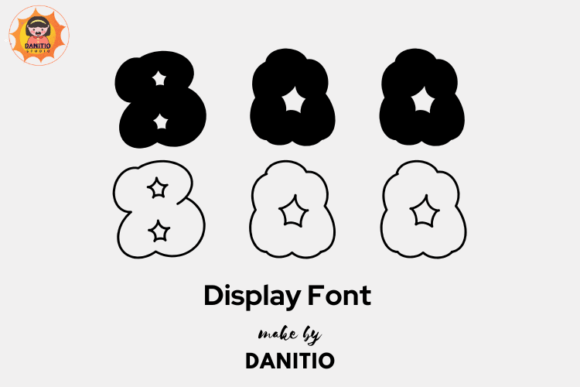
Unleash Your Creativity with Boo Boo Font: The Ultimate Font for Fun and Spooky Designs
Step into a world of whimsy and enchantment with Boo Boo Font, a captivating display font designed to bring joy and personality to your creative projects. Whether you're designing digital invitations, crafting greeting cards, or creating custom merchandise, Boo Boo Font is your perfect companion.
With its playful curves and bubbly charm, Boo Boo Font exudes a sense of lightheartedness and merriment. Inspired by the magic of Halloween, this font is a perfect fit for any project that aims to evoke a sense of wonder and excitement.
Immerse yourself in the boundless possibilities that Boo Boo Font offers. Use it to create unique and engaging presentations, adding a touch of playfulness to your slides. Design eye-catching t-shirts and mugs that are sure to turn heads, featuring messages and graphics that pop with personality. Unleash your creativity and make your designs stand out with Boo Boo Font.
Boo Boo Font is not just a font; it's an experience. Its versatility knows no bounds, allowing you to explore various design styles and themes. Create tote bags that radiate positivity and charm, adorned with Boo Boo Font's playful characters. Design social media posts that capture attention, using Boo Boo Font to craft messages that jump off the screen.
With Boo Boo Font, you'll never run out of inspiration. Its playful nature invites you to experiment and push the boundaries of your creativity. Whether you're a seasoned designer or just starting, Boo Boo Font is your key to unlocking a world of design possibilities.
Join the creative revolution and embrace the magic of Boo Boo Font. Its versatility, charm, and endless possibilities await you. Transform your designs into captivating works of art and leave a lasting impression on your audience. Dare to be different, embrace Boo Boo Font, and let your imagination run wild.